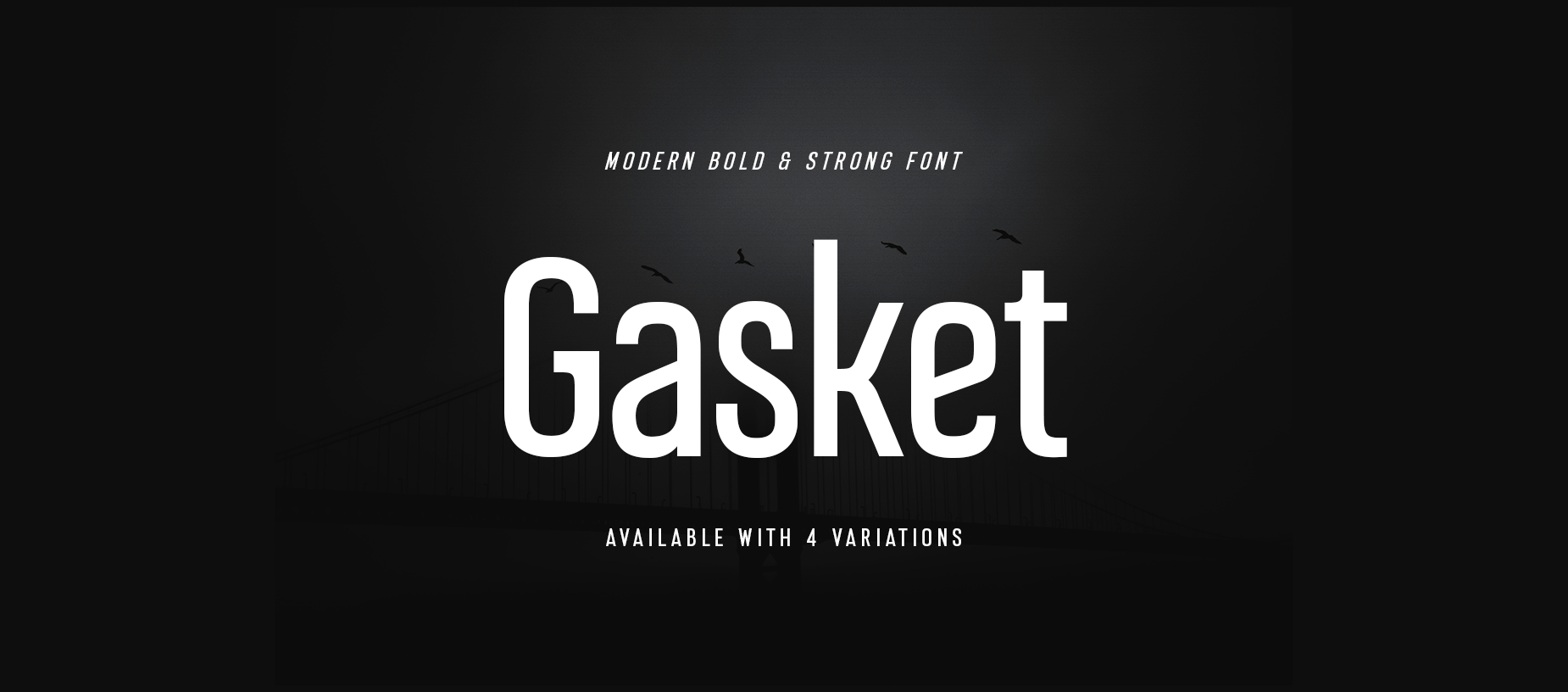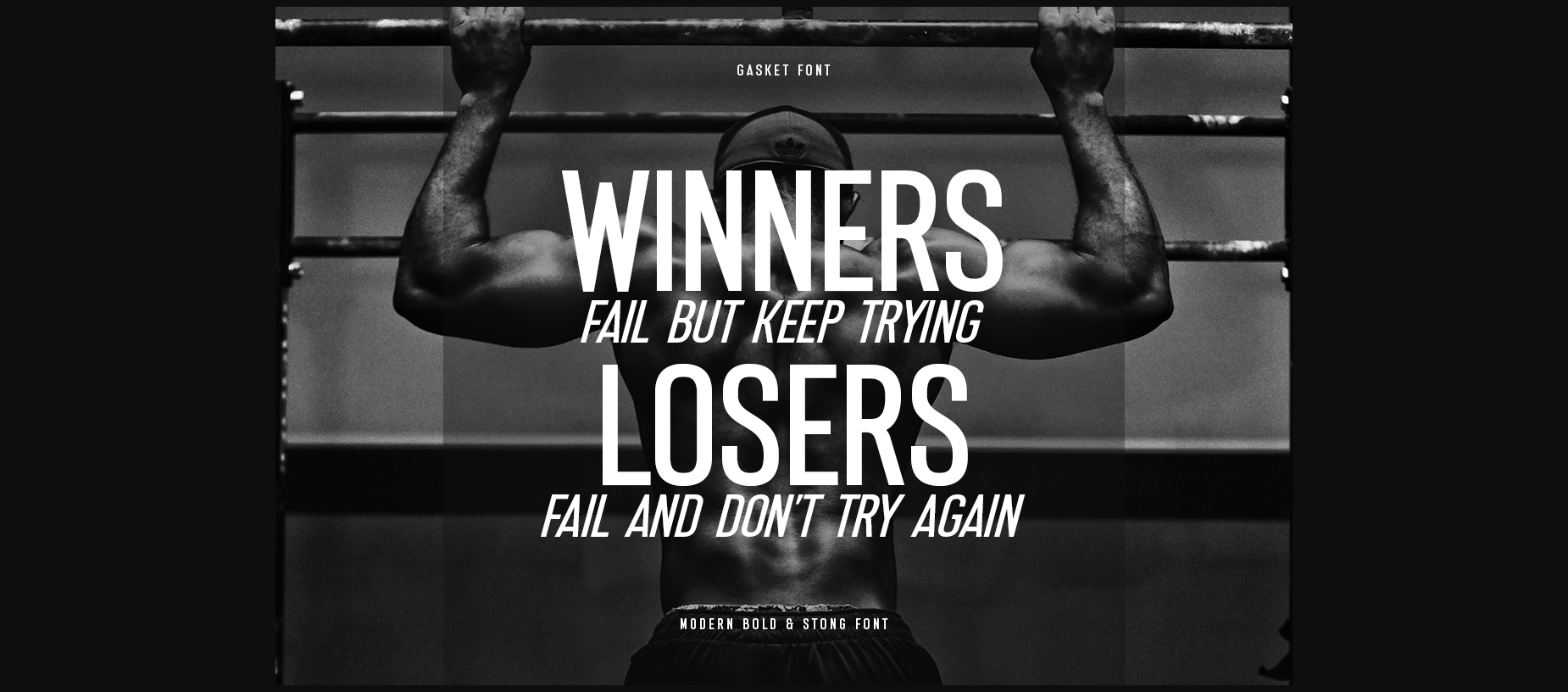
About Gasket Font
Gasket is a bold and assertive sans serif font. No matter the topic, this font will be an incredible asset to your fonts’ library, as it has the potential to elevate any creation.